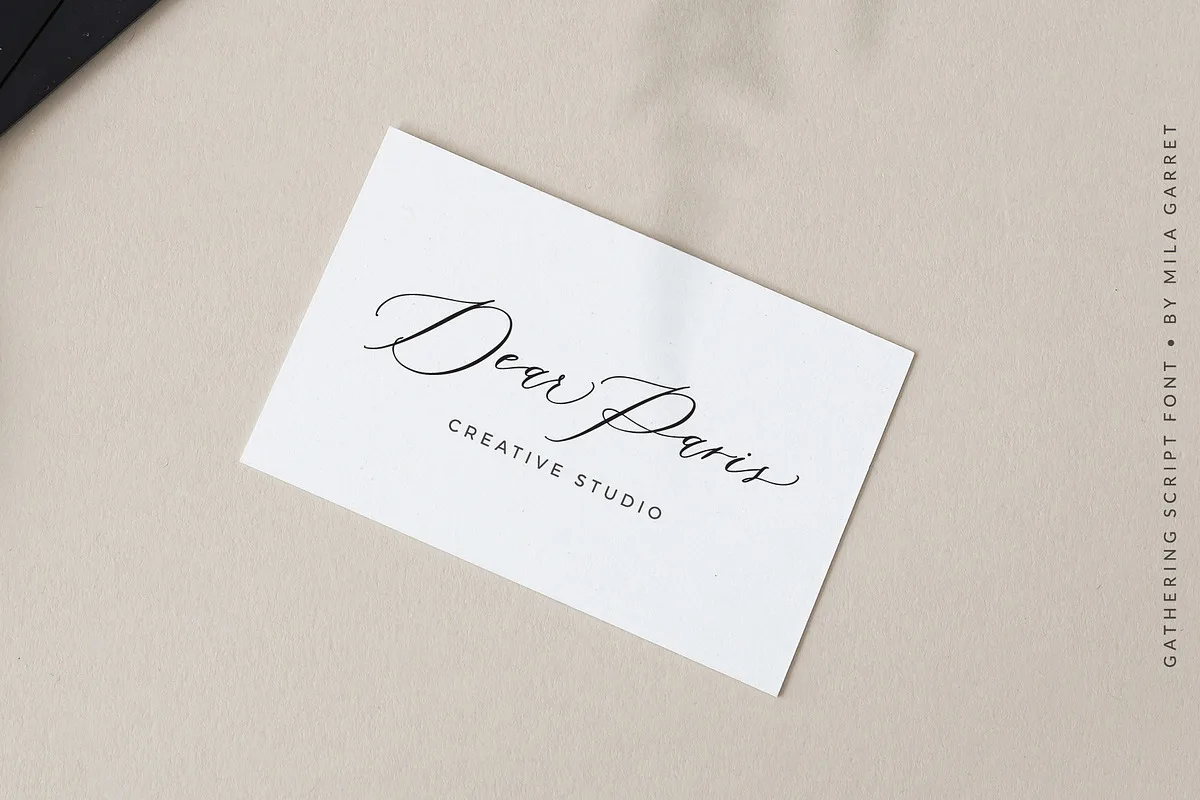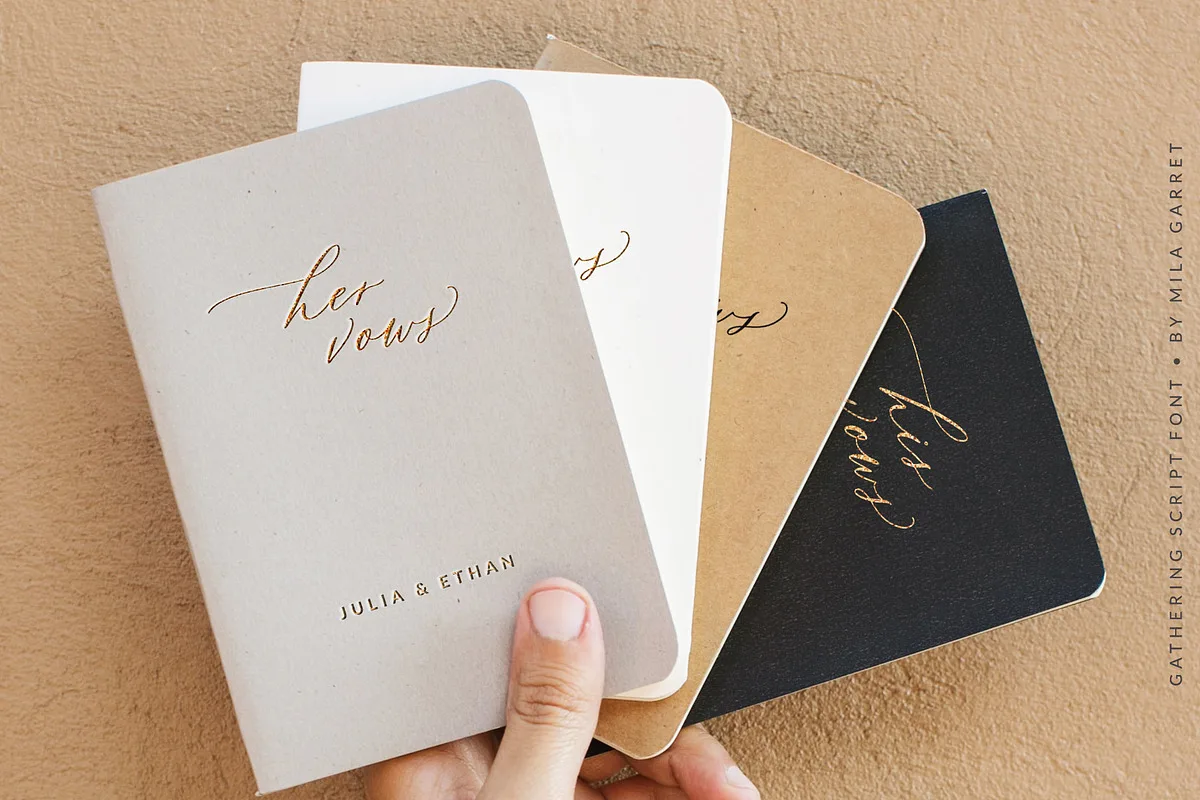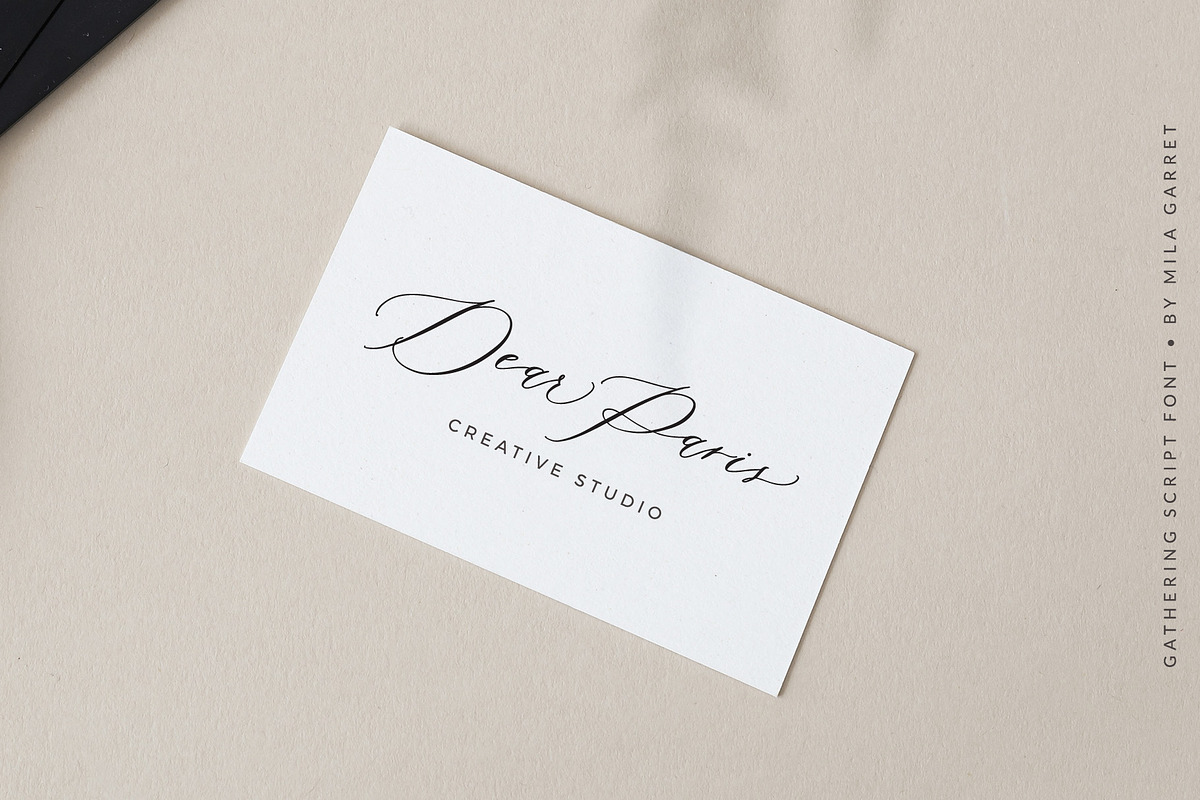
Gathering Script Font
Gathering Script is a modern wedding calligraphy font that lends a sophisticated, handwritten look to wedding stationery, elegant logos and branding, websites, calligraphy quotes, and more!
Included are a wide range of alternate glyphs for letters, to replicate the appearance of classic handwritten calligraphy.
• Full Set of standard alphabet and punctuation
• Extra set of Beginning swashed uppercase
• Extra set of beginning swashed lowercase
• Three full sets of ending lowercase alternates
• Extra stylistic alternates and ligatures
• Multilingual Characters